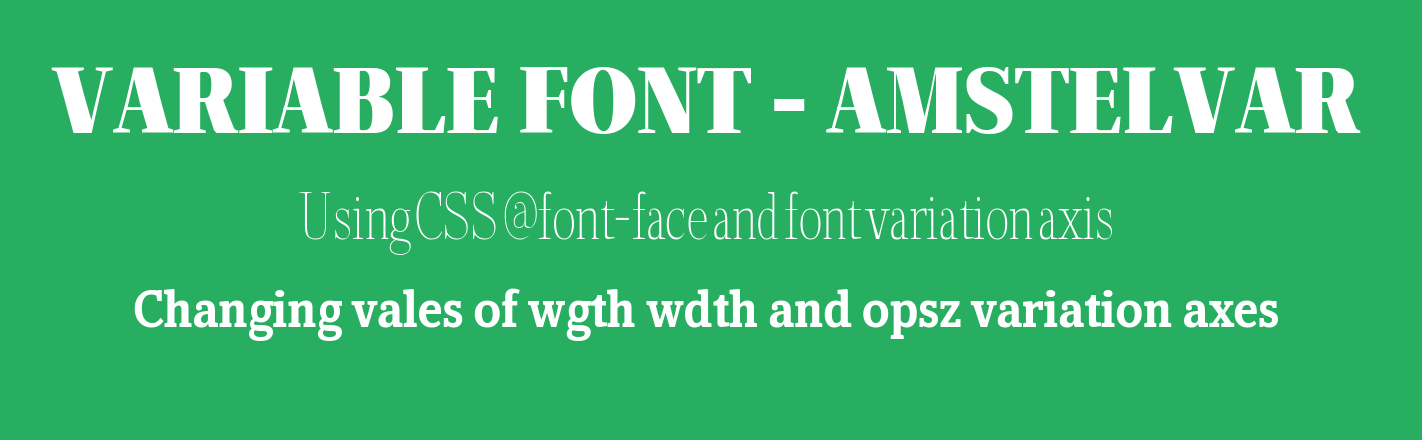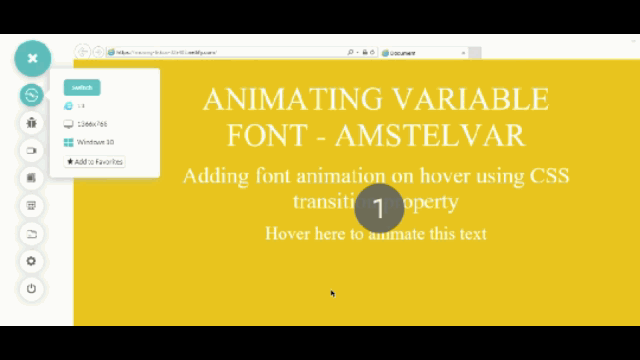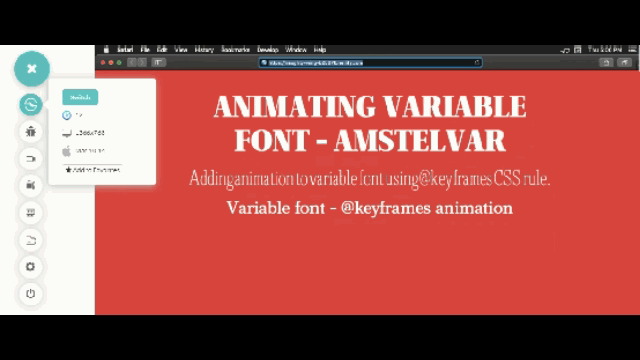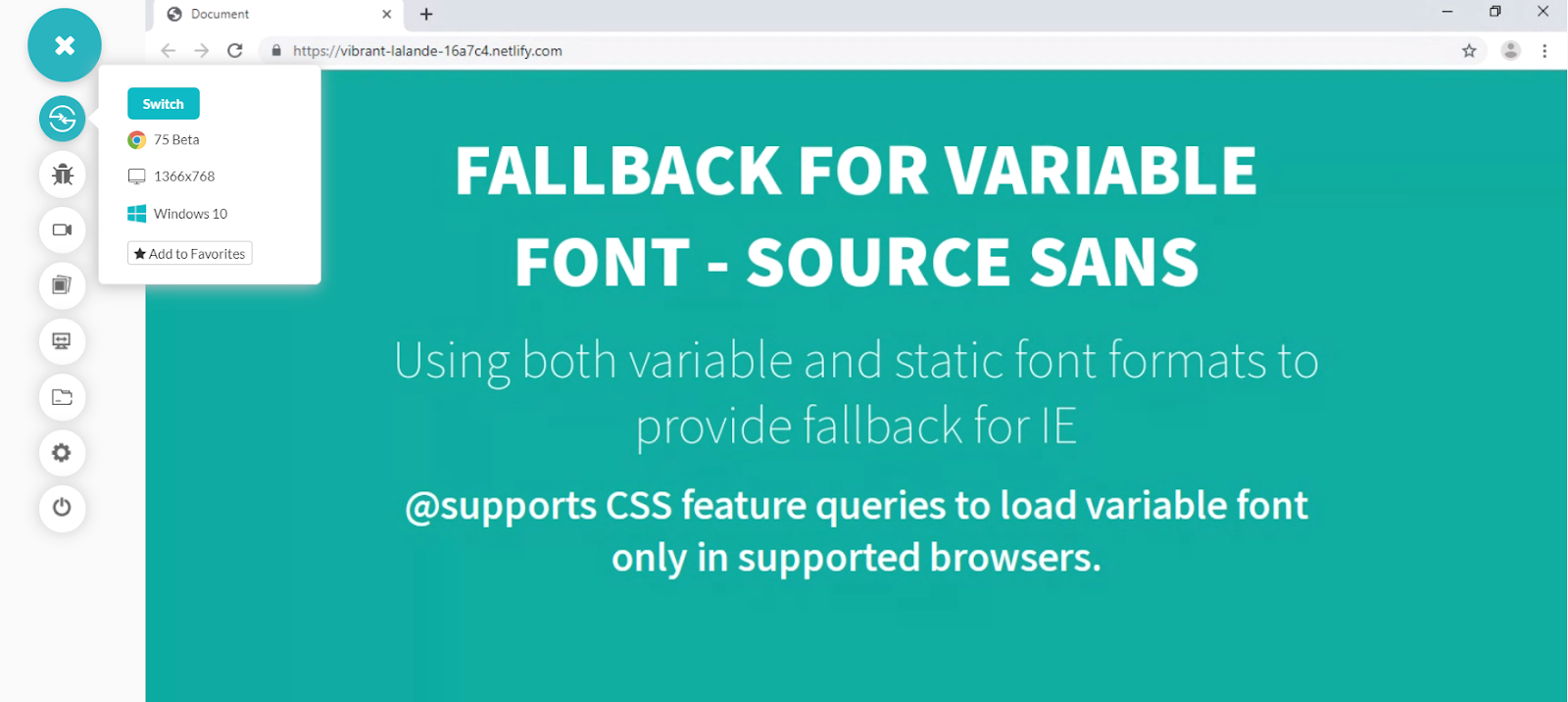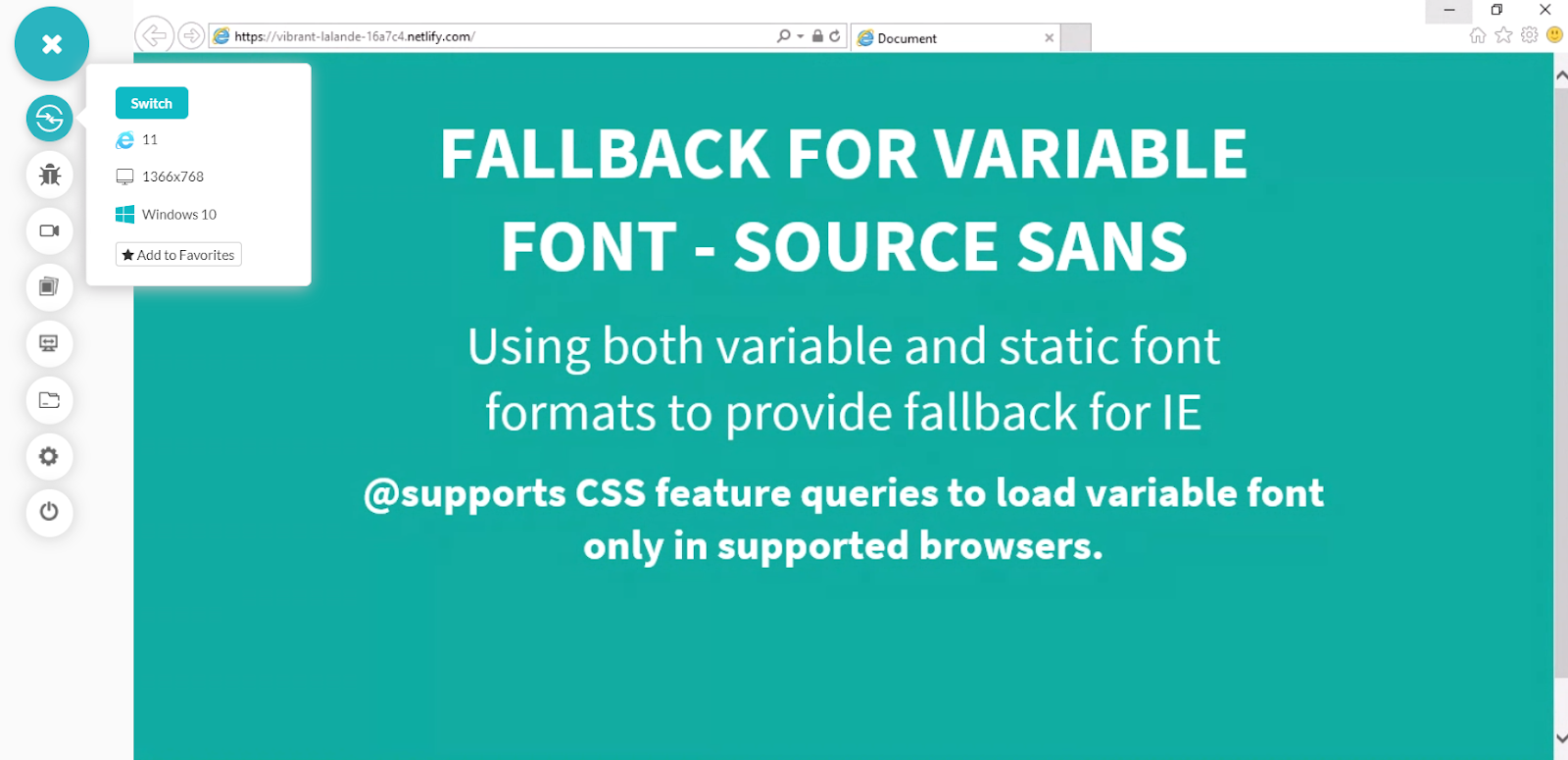
In this tutorial, we will explore what are variable fonts, their implementations, and why they are better than static fonts.
One of the key cornerstones of Modern web design is Typography. For those who are aware of the eminence of typography in web experience, no explanation is necessary. For those who don’t, no explanation would suffice. While the web is entering a new, exciting and uncharted domain, web fonts have remained static and stagnant since time immemorial. That all changed with the arrival of ‘Variable Fonts’ which have revolutionized the way we see and interact with web fonts. Variable Fonts have unleashed a whole new world of creative possibilities along with enhancing website’s readability, accessibility, performance, flexibility, and responsiveness. Developers no longer need to rely on standard static fonts bound with fixed design limitations but rather embrace variable fonts to unlock thousands of typographic variations along with font animations and creating unique custom font styles.
Variable fonts are part of ‘OpenType’ specification originally developed as a joint collaborative project between the 4 major giants – Apple, Microsoft Adobe and Google. The key concept behind variable fonts is to utilize unlimited font style variations of a specific typeface by relying on just a single font file. This allows a developer to fully utilize the potential of RWD(responsive web design) by modifying or animating the typeface based on device viewport, device type, device orientation, mouse events, etc. On the contrary, standard static font requires separate font files for each font style, resulting in dreadful site performance.
Before diving deeper into variable fonts, here is a small excerpt that explores the limitations and problems that you would encounter while using traditional static fonts. Let’s say for your next web project, you need to select two static font typefaces – ‘Roboto’ for headings and ‘Open sans’ for paragraph texts. You are essentially selecting a ‘font-family’. A font family, in turn, comprises of various ‘font-styles’ – variations based on different font weight and italics.
In our example case, let’s assume you require the following font style variations –
You would need to download separate files for each of the font styles (or use google fonts embed link), for both the typefaces – ‘Roboto’ and ‘Open Sans’. As you can see in the image below, Google fonts will display a warning alert, indicating a poor load time for our test case needs. This will in turn adversely affect your website’s performance. The load time indicator will keep dropping from fast to moderate to slow as we keep adding different font styles. Slower load time would indicate low ranking on Google SERPs(Search Engine Result Pages). Wondering why? We have explained it in great detail in our blog where we talked about the importance of testing a mobile website. Although ‘Roboto Medium’ and ‘Roboto Bold’ are very similar and belong to the same font family, each one of them has its own independent font file.
Google Fonts – ‘Roboto’ and ‘Open sans’ font styles selected
As per our example case for ‘Roboto’ and ‘Open Sans’, you would end up needing 22 files with the combined size of approximately 3mb! These font files are downloaded by every visitor’s browser on your website to accurately display the text with the intended font face. This causes a surge in website load time and would create a frustrating user experience for any visitor especially on a slower mobile connection.
Static font files – ‘roboto’ and ‘open sans’
CSS stylesheets, JavaScript files, plugins, images, videos, analytics trackers and other dependencies contribute to the size of the website which is directly proportional to the loading speed. A website’s loading speed is arguably the biggest performance factor for SEO(Search Engine Optimisation) and user experience. Therefore, developers in their quest to optimize their websites come to a compromise to let visual appearance suffer in favor of better performance and usually restrict themselves to a couple of font faces and not more than 3-4 font styles as each additional font file is a burden on the page performance.
Traditional static fonts have zero flexibility and are bound with limited number of fixed font styles like ‘light’, ‘regular’, ‘regular-italic’, ‘semi-bold’, ‘extra-bold’. For example, ‘open sans’ font family has just 10 styles compared to ‘Roboto’s’ 12. Some font families like ‘Lobster’ and ‘Abril Fatface’ have just a single font style available. This is where variable font comes to your rescue unlocking the possibility for developers to use potentially thousands of font style variations from a single file without compromising on performance.
A Variable font comprises of an entire typeface or commonly known as font family in a single font file instead of having separate font files for every font style variation. By the help of CSS @font-face and style rules, thousands of different font weight, width and style permutations can be created. Moreover, unlike static fonts, variable fonts supports CSS transition and animation properties that help to achieve smooth and fluid shifting animations between various font styles. Variable Fonts also offer the ability to create a custom font style. This is quite useful for creating unique branding and Logo designs that can set your designs apart from the rest. Are you aware of the top 17 UI Design mistakes that lead to failure of your website?
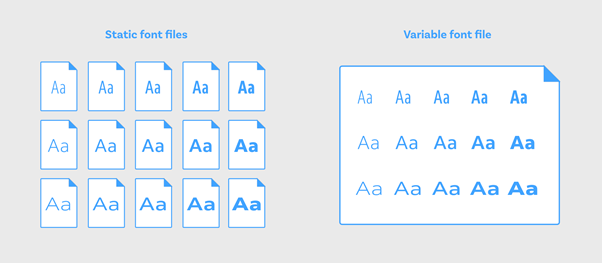
You must note that although the size of a variable font file is slightly larger compared to the traditional static font file, on a whole a variable font offers much better efficiency. Taking into consideration that on an average, you would require at least 4 to 5 font style variations for each font family, a single variable font file size is significantly smaller than the combined size of 4-5 static font files.